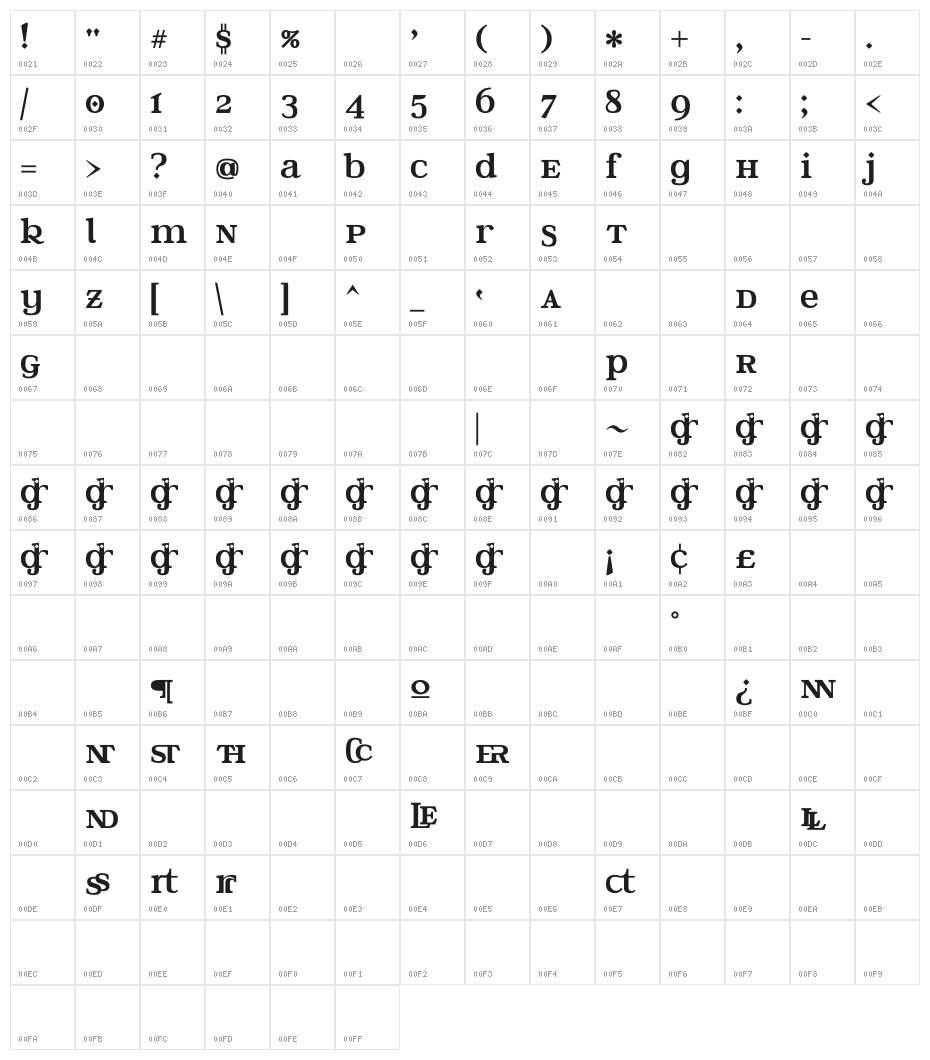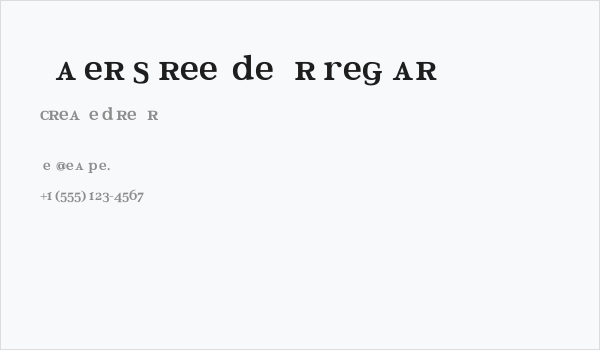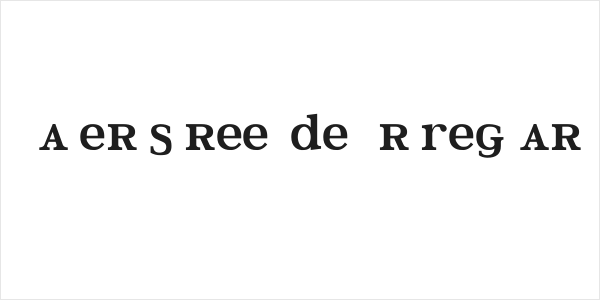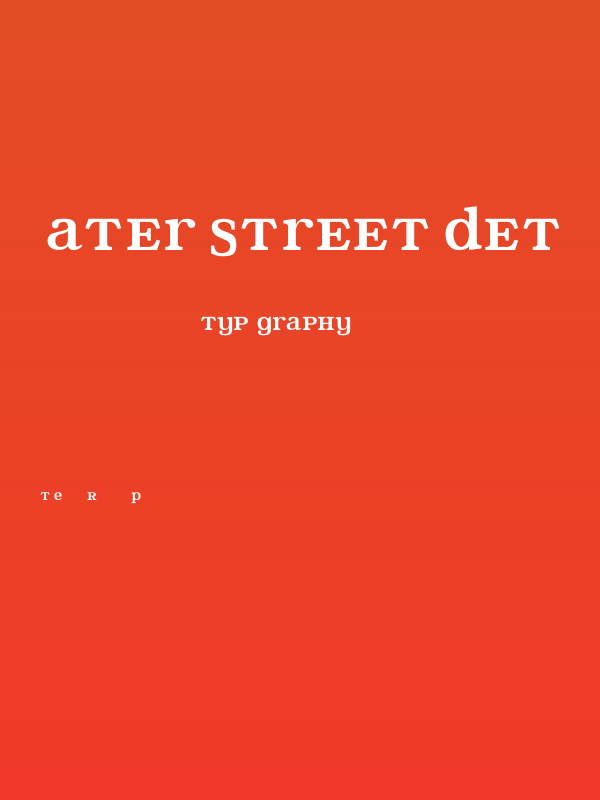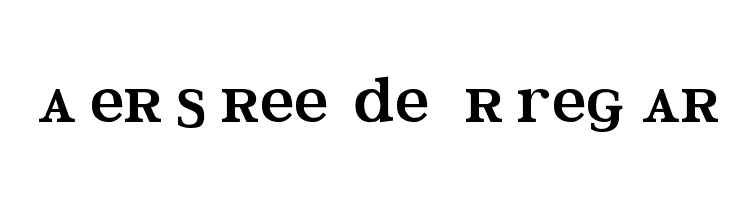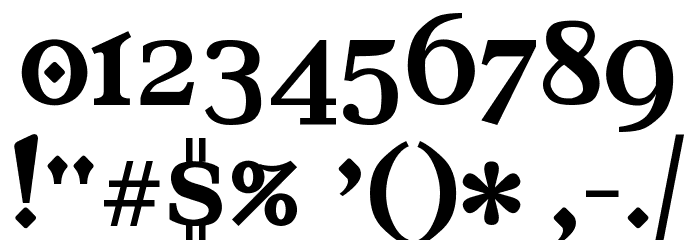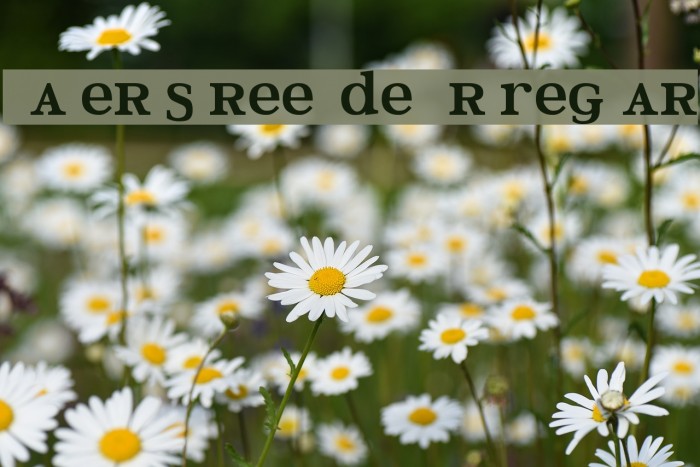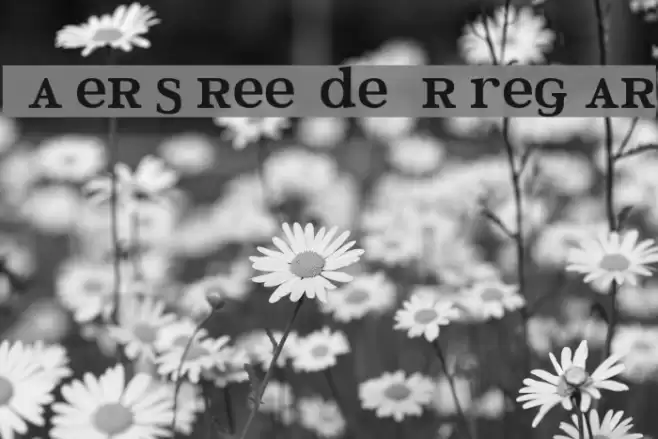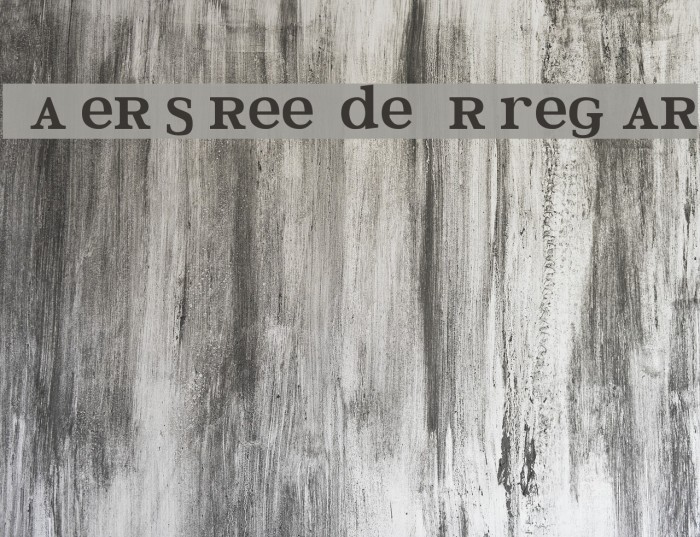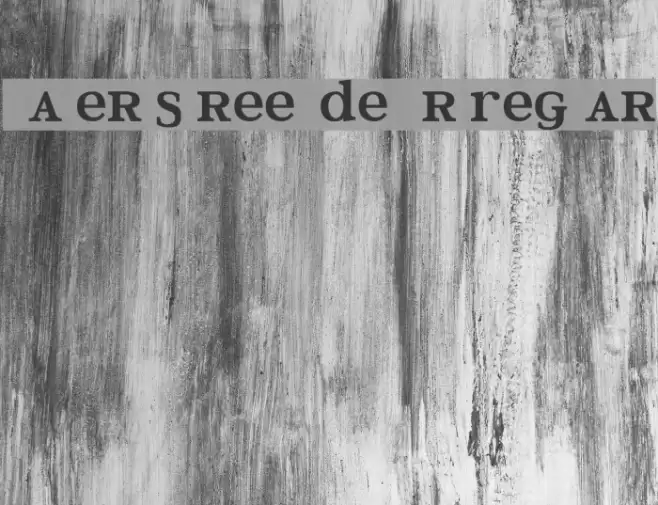
Water Street Detour Regular Font
Water Street Detour Regular Description
This font features a bold and distinctive design with a strong presence. The characters are well-defined with thick strokes, giving it a robust and impactful appearance. The uppercase letters are slightly wider, adding to the font's commanding style. The lowercase letters maintain a consistent weight, ensuring readability. The numerals are clear and easy to distinguish, while the special characters are creatively designed to match the overall aesthetic. This font's unique style makes it suitable for various creative applications.
| Proposed Projects | Ideal for branding, poster design, headlines, and any project requiring a strong visual impact. |